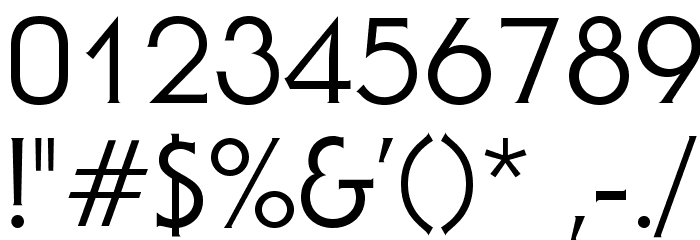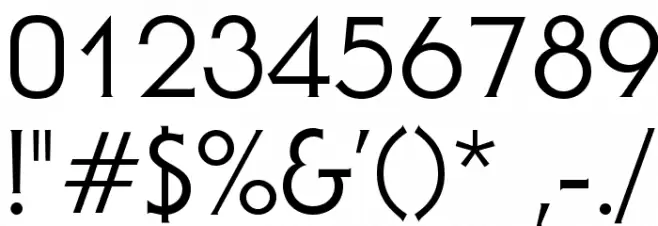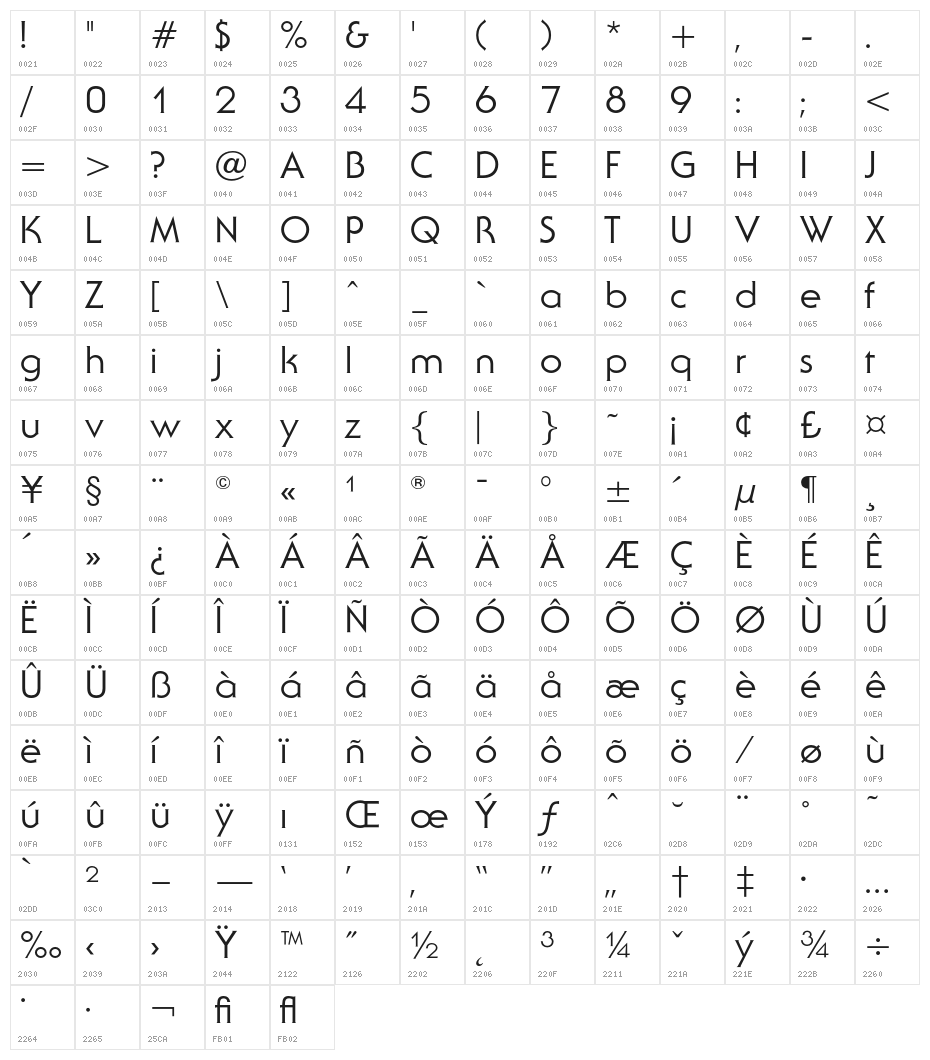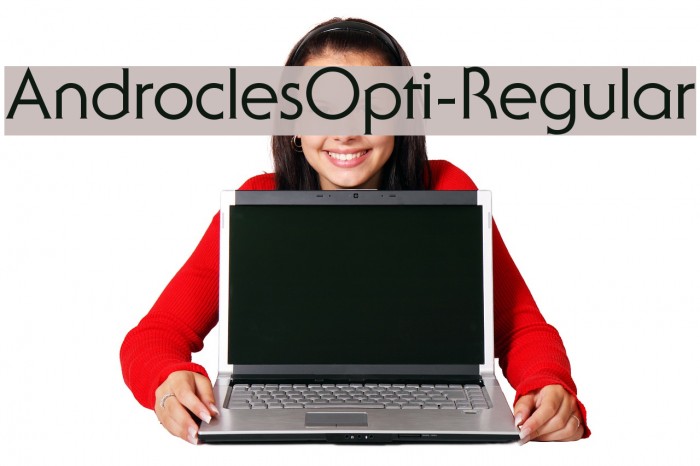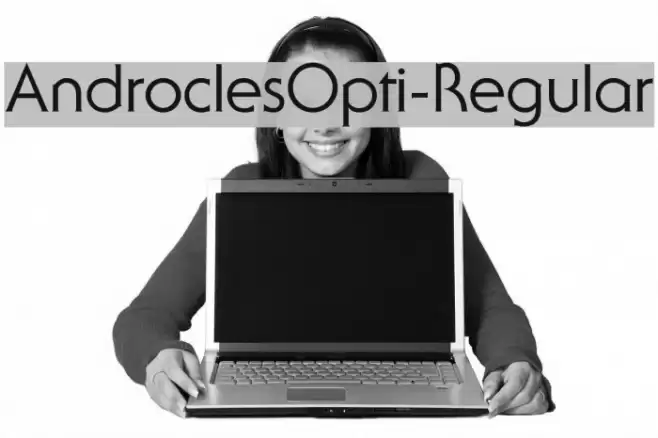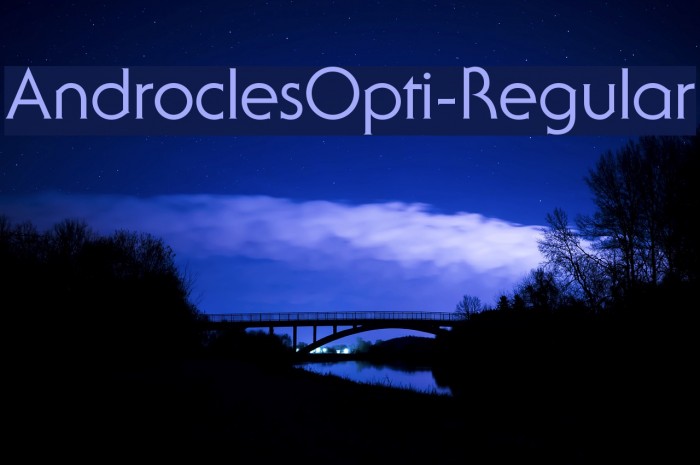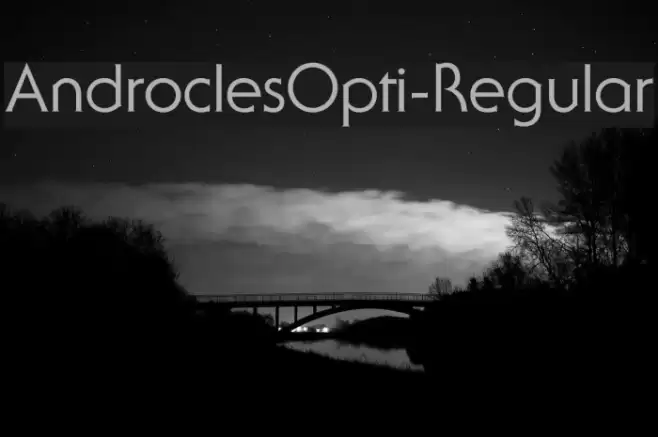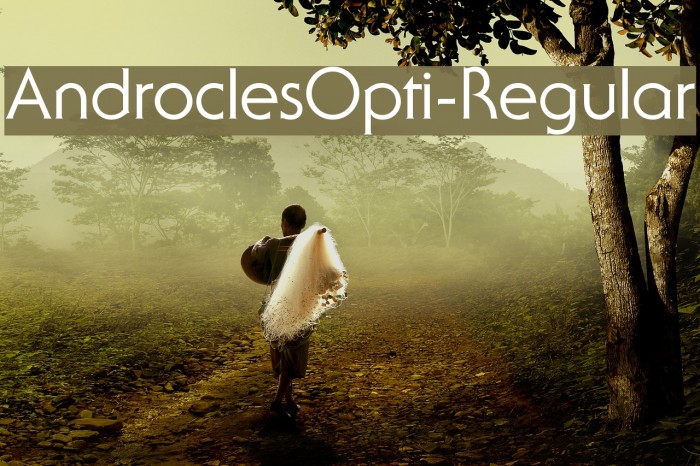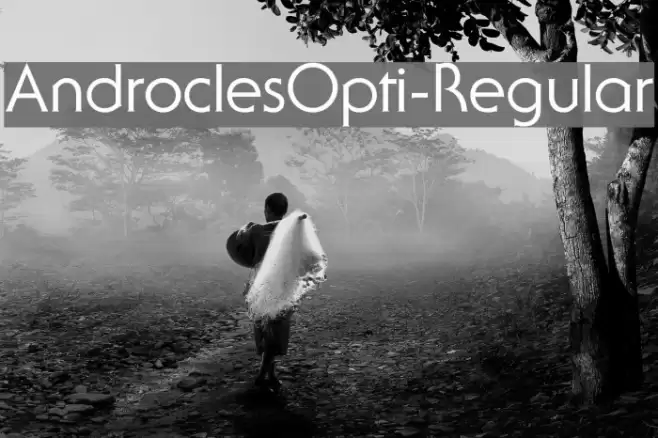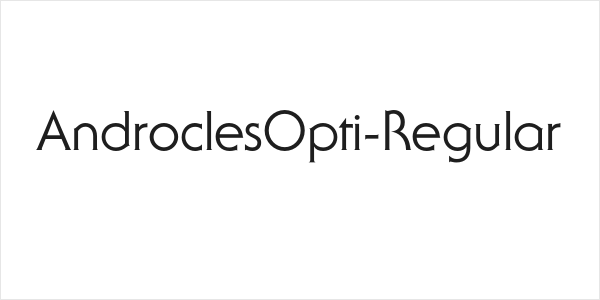
AndroclesOpti-Regular Font
AndroclesOpti-Regular Description
This font features a modern and sleek design with clean lines and a geometric structure. The uppercase letters are bold and commanding, while the lowercase letters maintain a consistent flow with slightly rounded edges. The numerals are clear and easy to read, making them suitable for various applications. Special characters are well-defined and integrate seamlessly with the overall style. The font's simplicity and elegance make it versatile for both digital and print media.